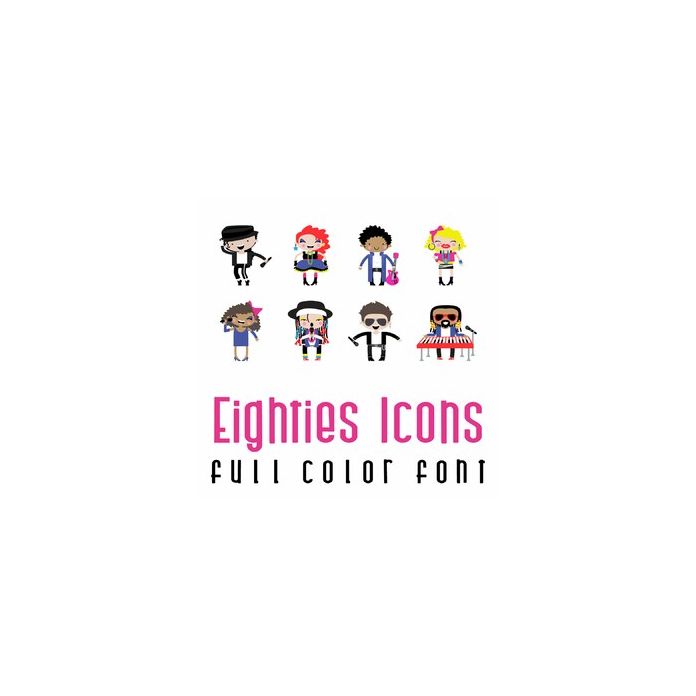
This adorable full-color doodlebat font features 26 pop icons from the Eighties. Perfect for cards, crafts, gifts, decor, scrapbook pages, planner stickers, and more!